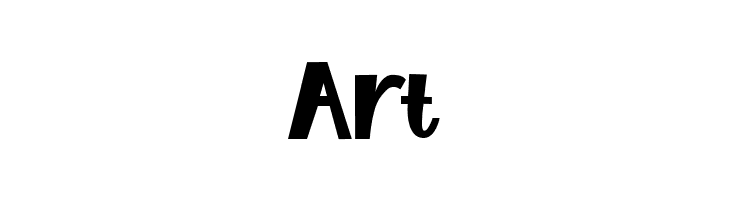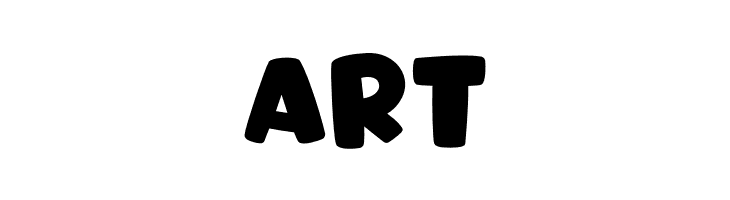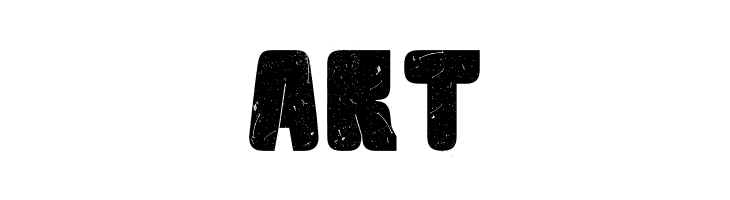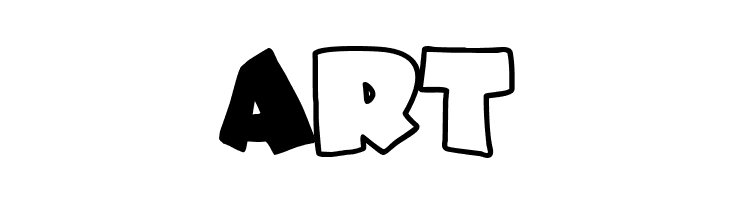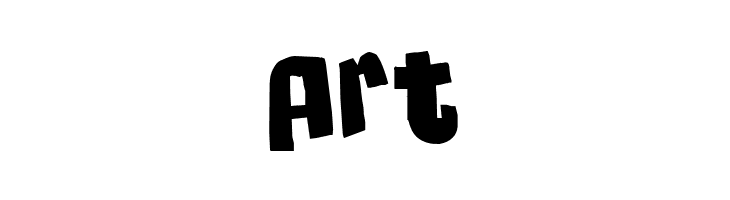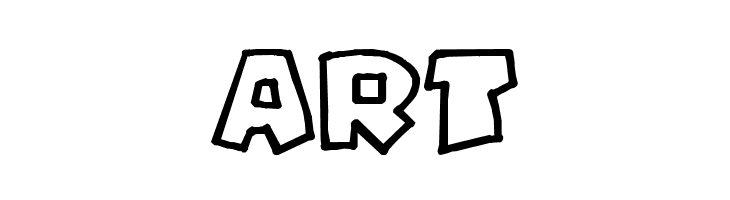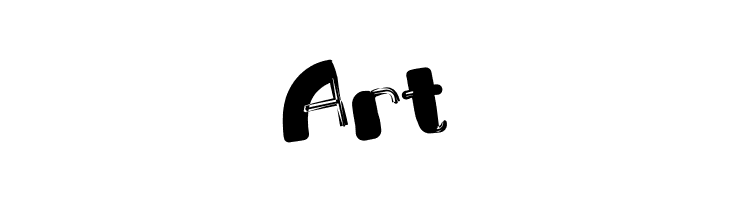
A playful, bold font with rounded, exaggerated curves and a whimsical style.
A playful, bold font with rounded, thick characters for a fun and approachable style.
A bold, rounded font with a playful and bubbly style.
A bold, playful font with rounded edges and a retro vibe.
A bold, distressed font with a vintage, handcrafted appearance.
A playful, bold font with a broken, puzzle-like design.
A bold, playful font with a cartoonish style and exaggerated curves.
A bold, playful, and irregular font with a retro comic book style.
A bold, outlined font with a playful, cartoonish style.